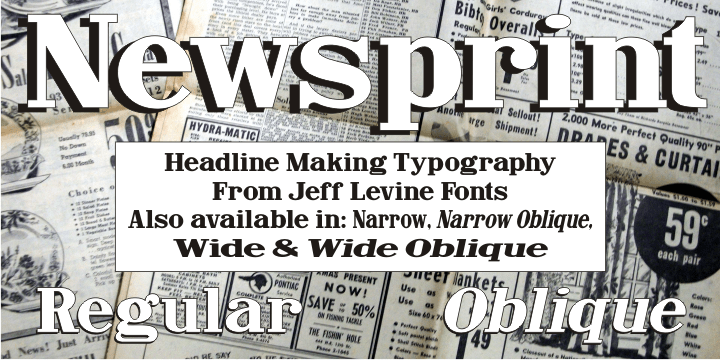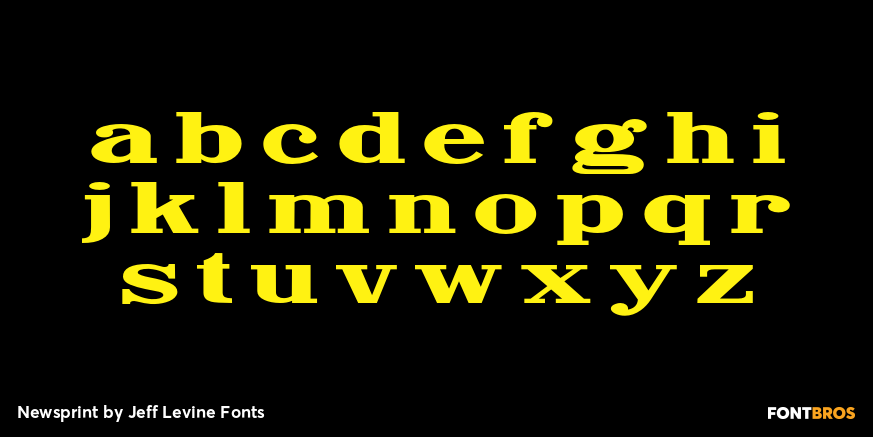
Newsprint
Newsprint JNL has its origins in an online auction image of wood type. Only the lower case a-z were shown and the type design included an extra-wide 'g' and 's'. Expanding on this idea but narrowing the 's' a bit, Jeff Levine created a capitals set and all of the necessary additional characters - even adding a generous selection of accented characters not usually found in his display fonts.
Regular, oblique, narrow, narrow oblique, wide and wide oblique versions are available. All styles offer crisp, clean lettering for headlines, window signage and other display text applications.